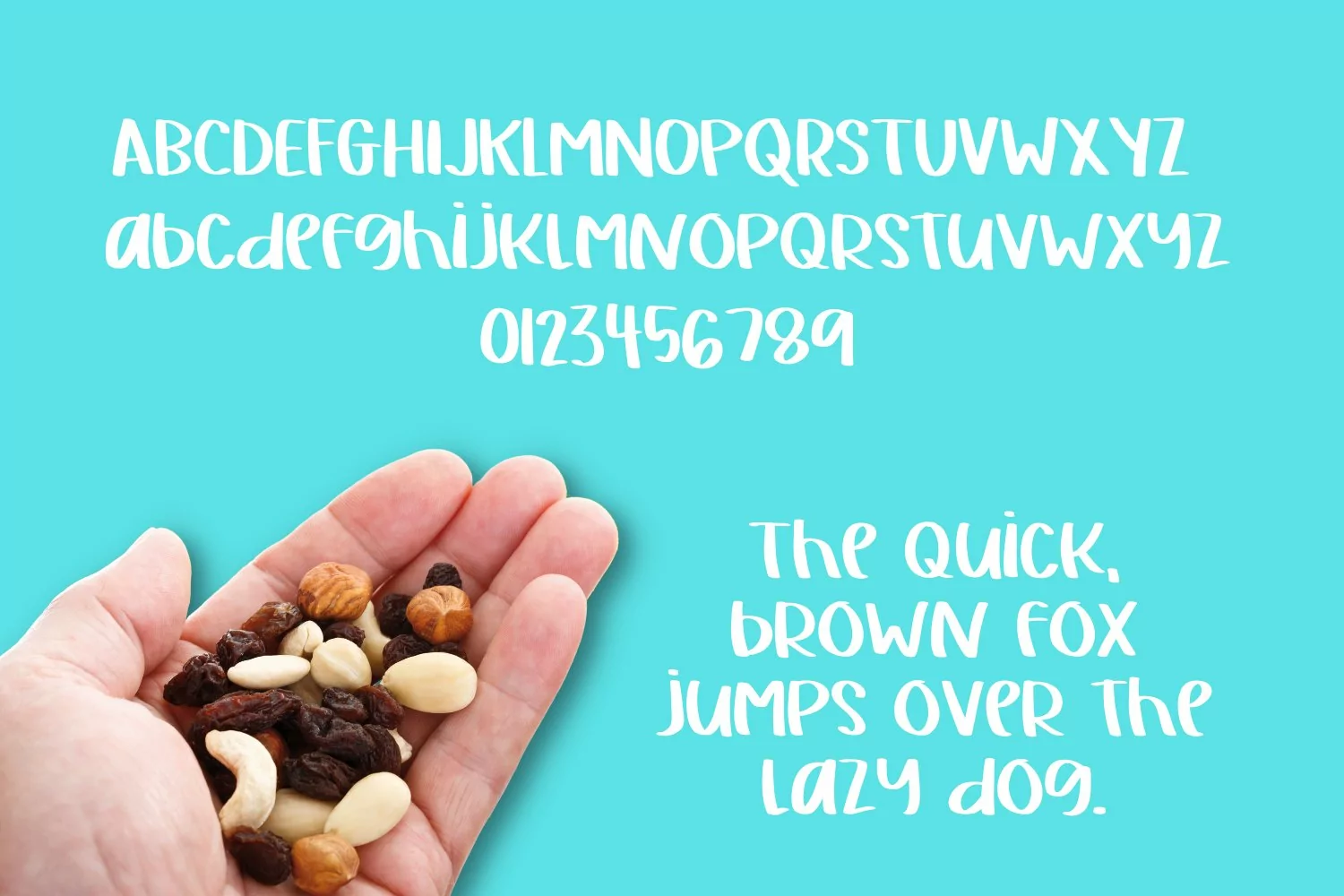
Trail Mix is a bold handwritten font that is perfect for many design projects. It brings charm and personality to product packaging, logos, t-shirt designs and more!